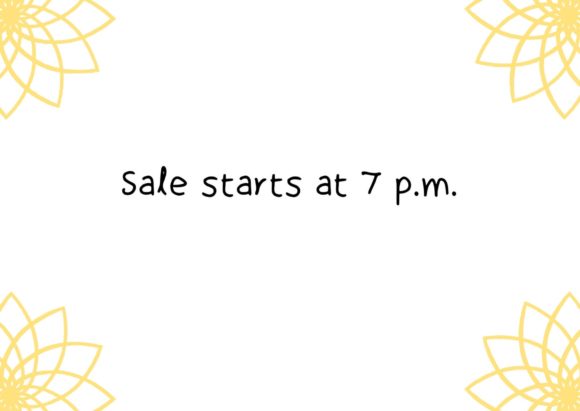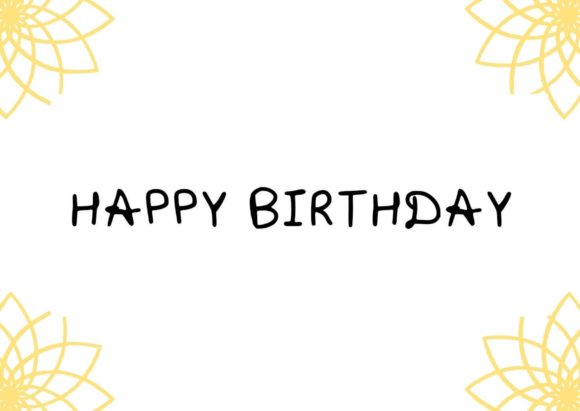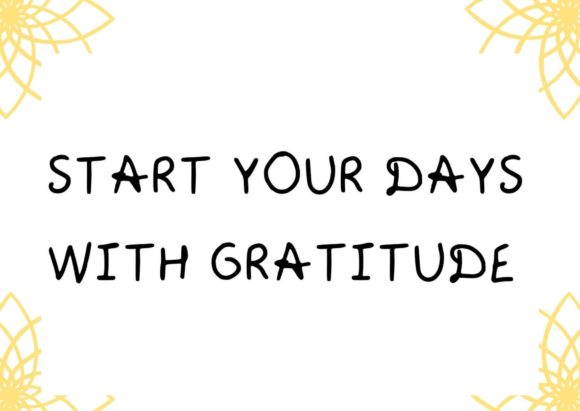
Complete Stylish Font
About Complete Stylish Font
Complete stylish is a cool and versatile handwritten font. No matter the topic, this font will be an incredible asset to your fonts’ library, as it has the potential to elevate any creation!